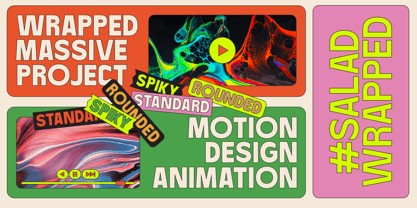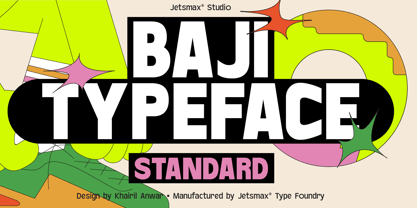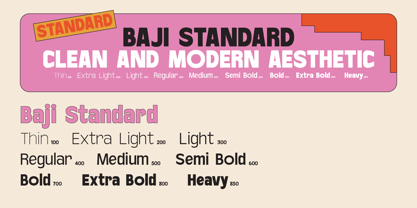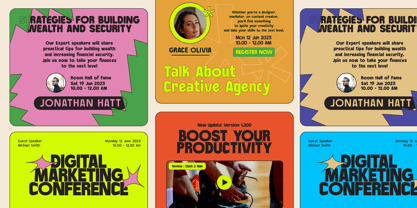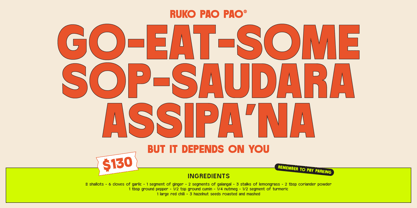
Baji Standard
von Jetsmax Studio
Die Schriftfamilie Baji Standard wurde von Khairil Anwar entworfen und von Jetsmax Studio veröffentlicht. Baji Standard enthält 9 Stile und Familienpaketoptionen.
Baji Typeface is a versatile sans-serif typeface that offers three distinct sub-families: standard, rounded, and spiky. With its nine weight variations, it provides a wide range of options to suit different design needs.
Designer: Khairil Anwar
Herausgeber: Jetsmax Studio
Foundry: Jetsmax Studio
Eigentümer des Designs: Jetsmax Studio
Founded in 2018, Jetsmax is a Design Studio based in Makassar, South Sulawesi, Indonesia. Started as an individual project; now, we are a small team working professionally to make stunning and cool design fonts and typefaces which are suitable for any project for both personal and business purposes. We always try our best to make something new and unique to meet market expectation. Originality and consistency are our core values that we hold close in our hearts.